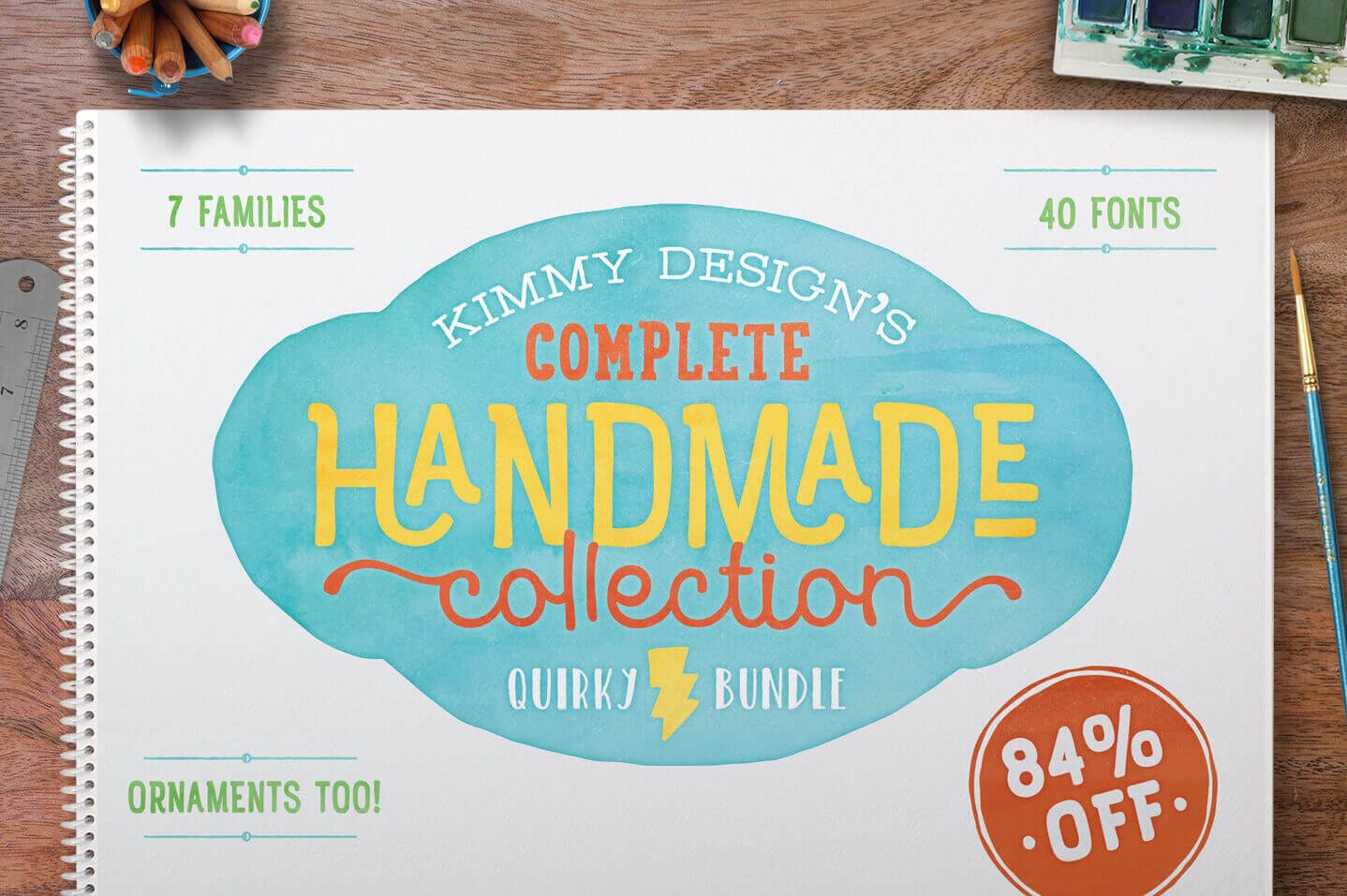
This superb California-based designer is at it again! This time, you can nab Kimmy Design’s Complete Handmade Collection and add some quirkiness to your typeface toolbox. Bursting with 40 unique fonts, this bundle of joy is chock full of thousands of extra features, ornaments and OpenType variations. They all combine for one uniquely amazing hand drawn collection.
• 40 of Kimmy Design’s most popular fonts – made from 7 unique font families.
• Fun, quirky and organic style.
• Wide range of font styles – scripts, serifs, sans serifs, typewriter, condensed, geometric.
• Integrate ornaments seamlessly into your design – borders, frames, icons, line breaks.
• OpenType Features – swashes, ligatures, alternatives and more.